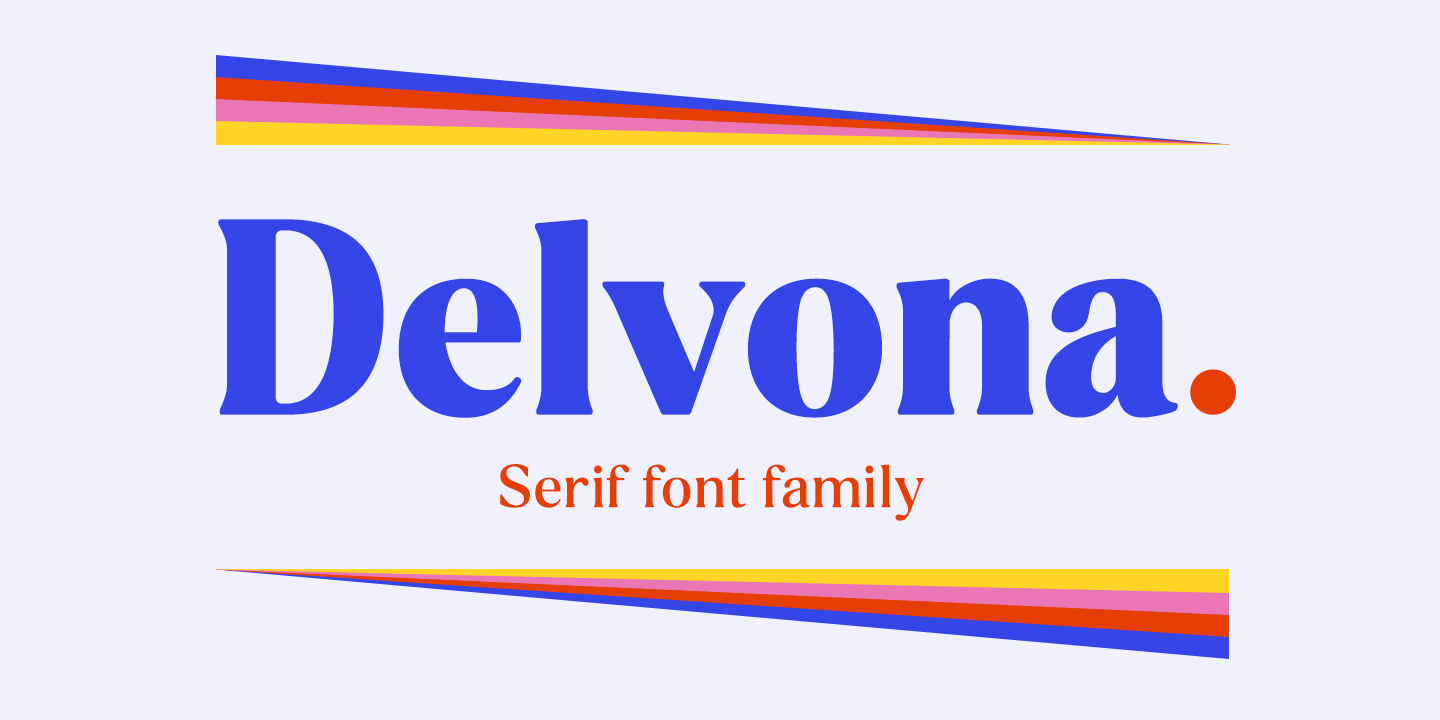
Add classic sophistication and timeless charm to your designs with Delvona Font Free Download. This elegant serif typeface features high-contrast strokes, refined curves, and a luxurious, editorial style—making it perfect for branding, invitations, fashion magazines, packaging, and upscale website design. Delvona Font Free Download brings a polished, professional look that blends tradition with modern finesse.
The graceful letterforms of Delvona Font make it ideal for both headlines and body text, offering excellent readability while enhancing your designs with a distinctive sense of style. Whether you’re working on luxury branding, romantic stationery, or premium product labels, this font delivers beauty and clarity in equal measure.